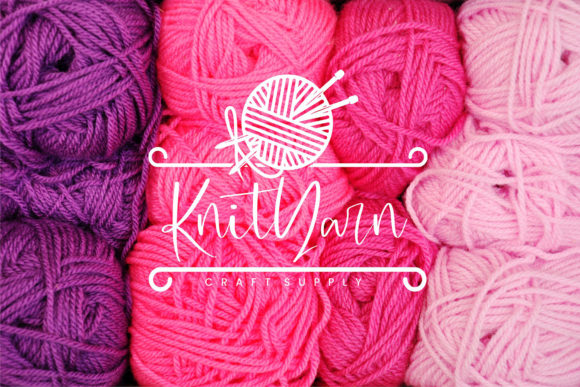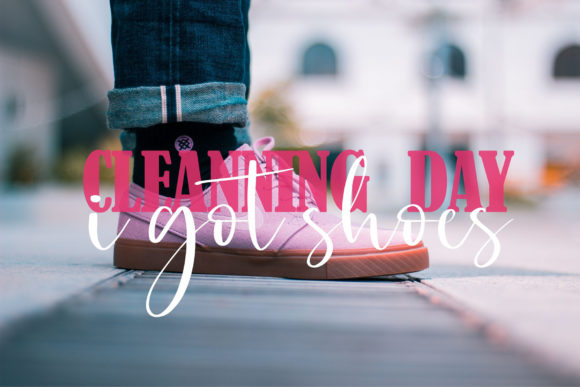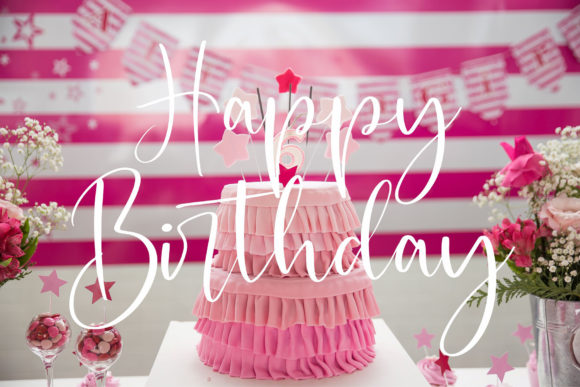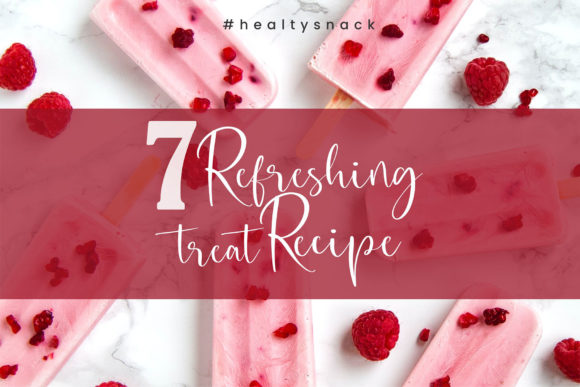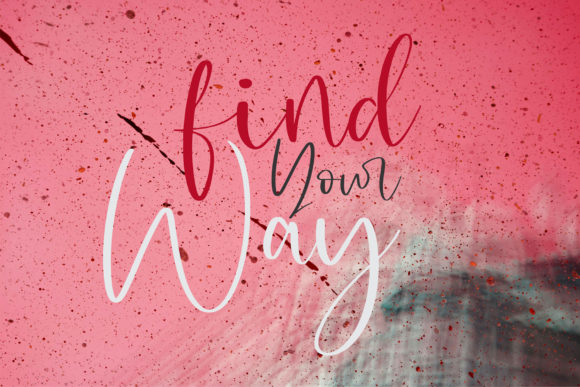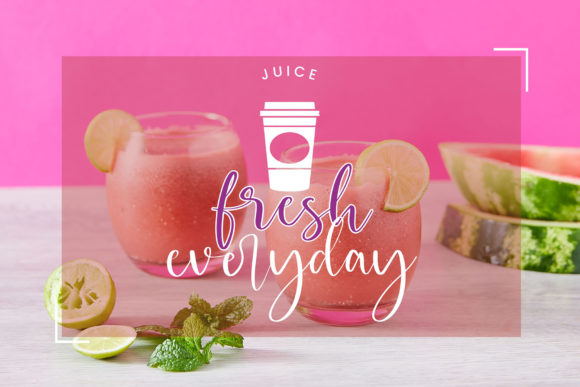
Introducing Harisha Font: The Playful and Quirky Handwritten Font to Elevate Your Designs
Are you tired of using the same old fonts in your designs? Look no further than Harisha Font, a delightful and quirky handwritten font that’s sure to add a joyful touch to your creations. With its playful style and charming personality, Harisha Font is the perfect addition to any design project, from beautiful stationery art to eye-catching social media posts.
The Unique Characteristics of Harisha Font
Harisha Font is a one-of-a-kind handwritten font that exudes a sense of playfulness and whimsy. Its adorable and quirky design makes it perfect for designers and crafters looking to add a personal touch to their work. The font’s unique characteristics include:
- Handwritten style: Harisha Font is a genuine handwritten font, giving it a personal and human touch that’s hard to replicate with traditional fonts.
- Playful and quirky: The font’s playful and quirky design makes it perfect for designs that require a bit of personality and whimsy.
- Easy to read: Despite its playful style, Harisha Font is easy to read and understand, making it perfect for use in a variety of design applications.
Uses for Harisha Font
Harisha Font is a versatile font that can be used in a variety of design applications, including:
- Stationery art: Add a personal touch to your stationery with Harisha Font. Create beautiful greeting cards, invitations, and letters that are sure to impress.
- Social media posts: Make your social media posts stand out with Harisha Font. Use it to create eye-catching graphics, quotes, and promotions that are sure to grab attention.
- Branding and packaging: Use Harisha Font to add a personal touch to your brand’s packaging and marketing materials. It’s perfect for creating labels, flyers, and brochures that showcase your brand’s personality.
- Crafting and DIY projects: Harisha Font is perfect for crafters and DIY enthusiasts who want to add a personal touch to their projects. Use it to create custom titles, headings, and labels for your craft projects.
Why Designers and Crafters Love Harisha Font
Designers and crafters love Harisha Font for its unique and playful style. Here are just a few reasons why:
- Unique and exclusive: Harisha Font is a one-of-a-kind font that’s sure to set your designs apart from the rest.
- Versatile: Harisha Font can be used in a variety of design applications, from digital designs to print projects.
Tips for Using Harisha Font
Here are a few tips for using Harisha Font in your designs:
- Pair it with other fonts: Harisha Font pairs well with other fonts, so don’t be afraid to experiment with different combinations.
- Use it in moderation: While Harisha Font is playful and fun, it’s best to use it in moderation to avoid overwhelming your design.
- Experiment with colors and textures: Harisha Font looks great in a variety of colors and textures, so don’t be afraid to experiment and find the perfect combination for your design.